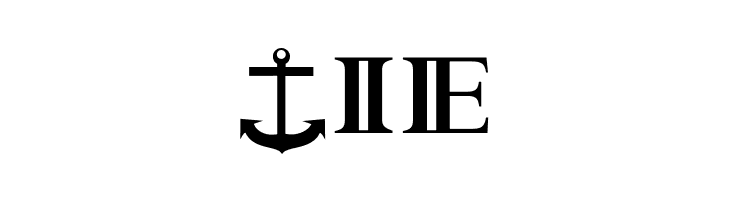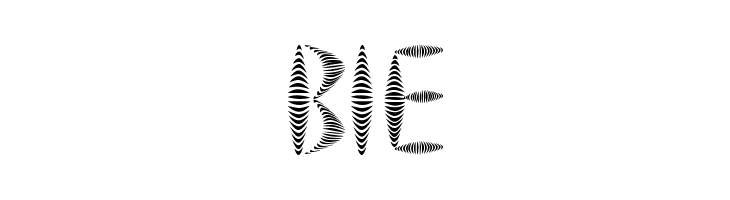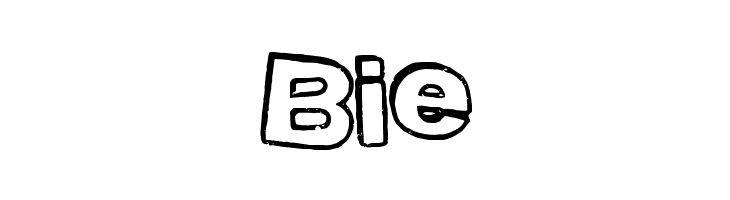
• Springy
A playful, wavy font with a spring-like, dynamic design.
• Stalshine Demo
A playful, casual handwritten font with smooth, flowing strokes.
• StampInk
A playful, hand-drawn font with bold, outlined characters.
• Stanislaw_PersonalUSE
• starblack
A bold, geometric font with a modern and clean design.
• StarDancing
A bold, decorative font with a dotted texture and strong outlines.
• starlight - free for personal u
An elegant script font with flowing, interconnected letters and ornate flourishes.
• StarRising
A modern, artistic font with geometric shapes and thin lines.
• Stars in the sky
A flowing, cursive script font with a handwritten style.
• StarsStripesBullets
A bold, high-contrast serif font with a classic yet modern style.